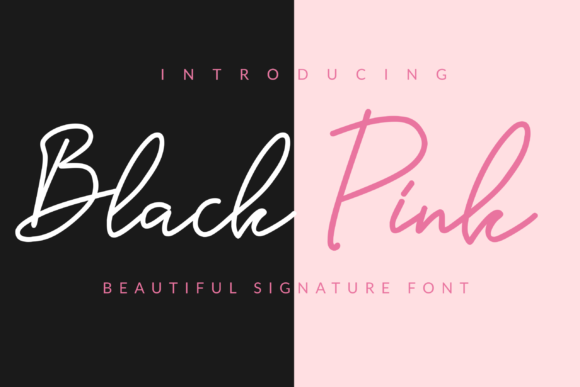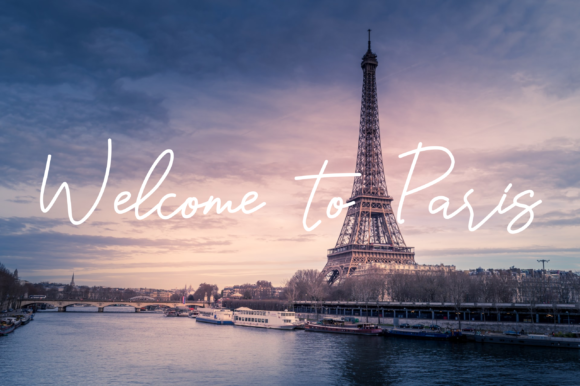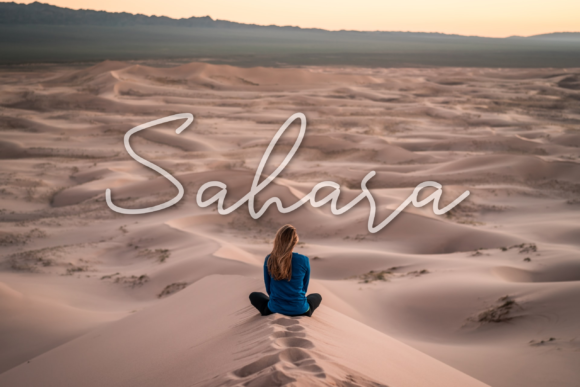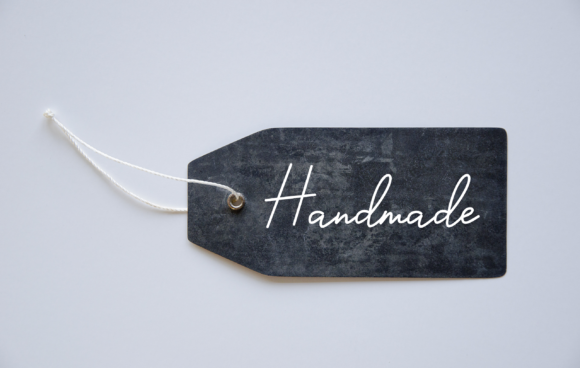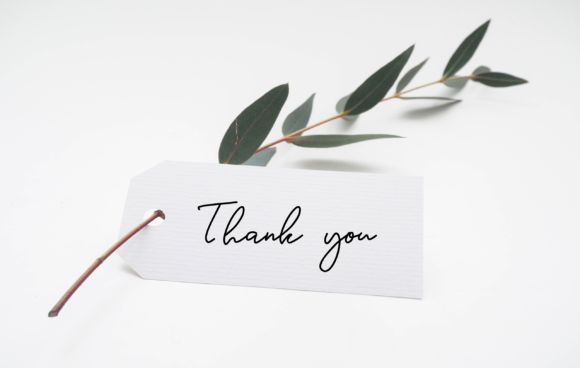
About Black Pink Font
Black Pink is a lovely and delicate script font that exudes elegance and class. This font was particularly crafted for those who need a beautiful and refreshing look to their designs.